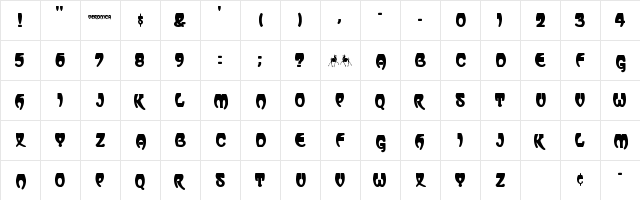
DXS Veronica Regular
Design Context for DXS Veronica Typeface
DXS Veronica is a composed and adaptable typeface that performs quietly and consistently across a wide range of design contexts.